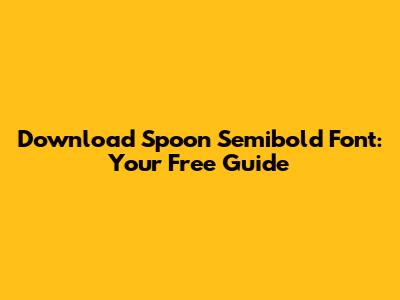
Hey guys! Are you on the hunt for a stylish and versatile font that's perfect for your design projects? Look no further! The Spoon Semibold Font is here, and guess what? You can get it for free! This article is your ultimate guide to everything you need to know about this awesome font: where to download it, how to use it, and some cool design ideas to get you started. So, buckle up, because we're about to dive into the world of Spoon Semibold and unlock its creative potential. Let's get started, shall we?
Why Choose Spoon Semibold Font?
Alright, so why should you even bother with the Spoon Semibold font? Well, let me tell you, it's got a lot going for it! First off, it's a semibold font, which means it strikes a perfect balance between being bold and easy to read. It's not too heavy, so it doesn't overwhelm your designs, but it's substantial enough to make a statement. It's the kind of font that grabs your attention without screaming at you. This makes it ideal for a wide range of uses, from headings and titles to body text and even logos. Plus, the Spoon Semibold font has a modern and clean aesthetic, giving your designs a contemporary feel. Whether you're working on a website, a poster, a social media graphic, or even a presentation, this font can help you achieve a professional and polished look. Another great thing about the Spoon Semibold font is its versatility. It plays well with other fonts, meaning you can easily pair it with different styles to create unique and eye-catching designs. It's like having a trusty sidekick that complements your main character (your other fonts) perfectly. And let's not forget the price tag – it's free! Who doesn't love free stuff, especially when it's as useful as a high-quality font? So, if you're looking for a font that's stylish, readable, versatile, and won't break the bank, the Spoon Semibold font is definitely worth considering. It's a fantastic addition to any designer's toolkit.
Key Features and Benefits
Let's break down the key features and benefits of the Spoon Semibold font a little further. Firstly, the readability is top-notch. As a semibold font, it provides excellent legibility, making it suitable for both headlines and body text. This is crucial for any design project where you want your message to be clearly understood. Secondly, the modern aesthetic adds a touch of sophistication to your designs. It's clean, contemporary, and versatile, allowing it to seamlessly integrate into various design styles. This means it can be used for branding, web design, print materials, and much more. The Spoon Semibold font's versatility is a huge advantage. It's adaptable and can be used in a variety of contexts, making it a great option for any project. Whether you're working on a personal blog or a corporate website, the Spoon Semibold font will make your content look amazing. The font's availability is also a huge plus. Being able to download it for free makes it accessible to everyone, regardless of budget. This is a game-changer for independent designers, small businesses, and anyone looking to enhance their visual communication without spending a fortune. In summary, the Spoon Semibold font offers a compelling combination of style, readability, versatility, and affordability. It's a great font to have in your collection, providing you with a reliable and visually appealing option for a wide array of design needs. It's easy to see why so many designers and creatives are turning to the Spoon Semibold font for their projects.